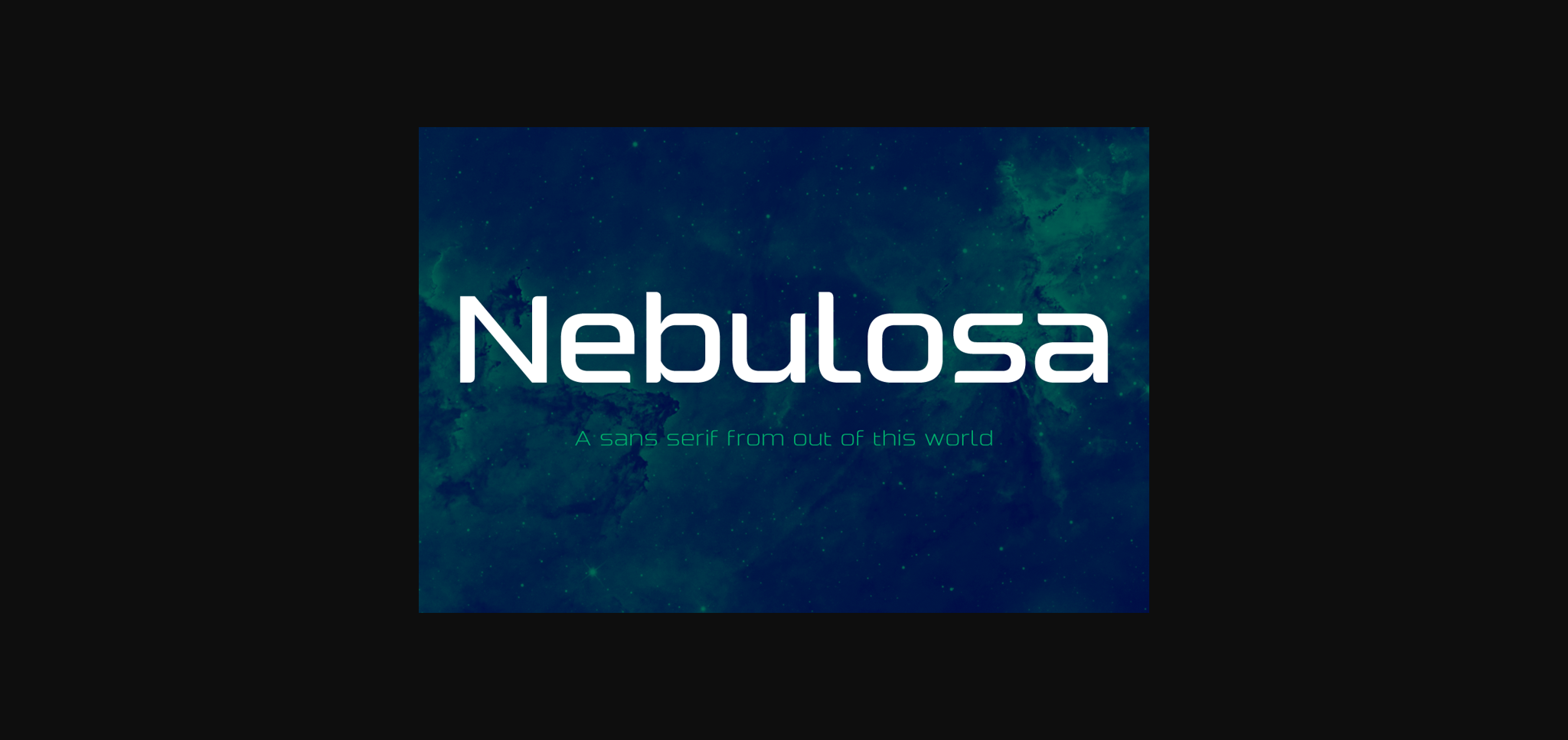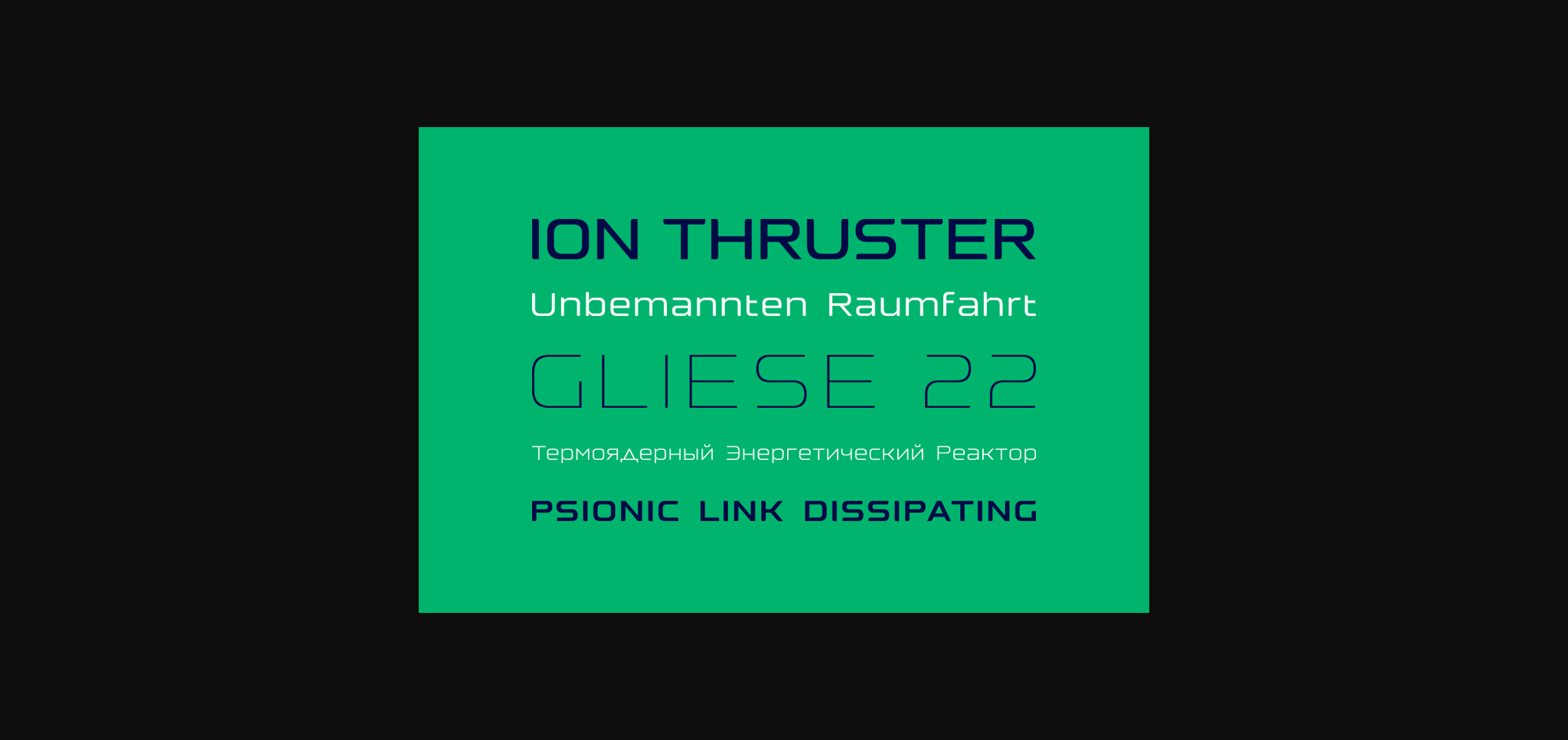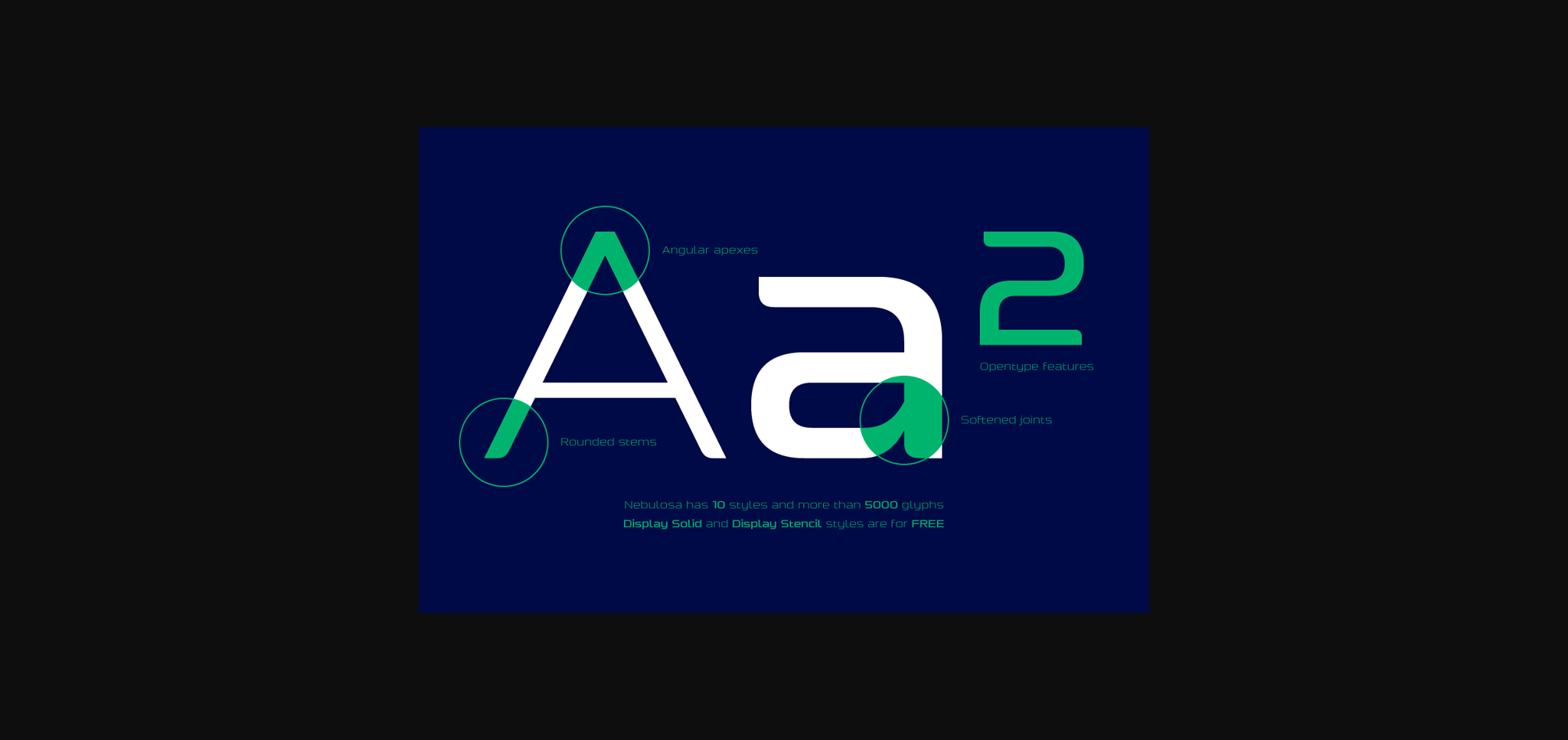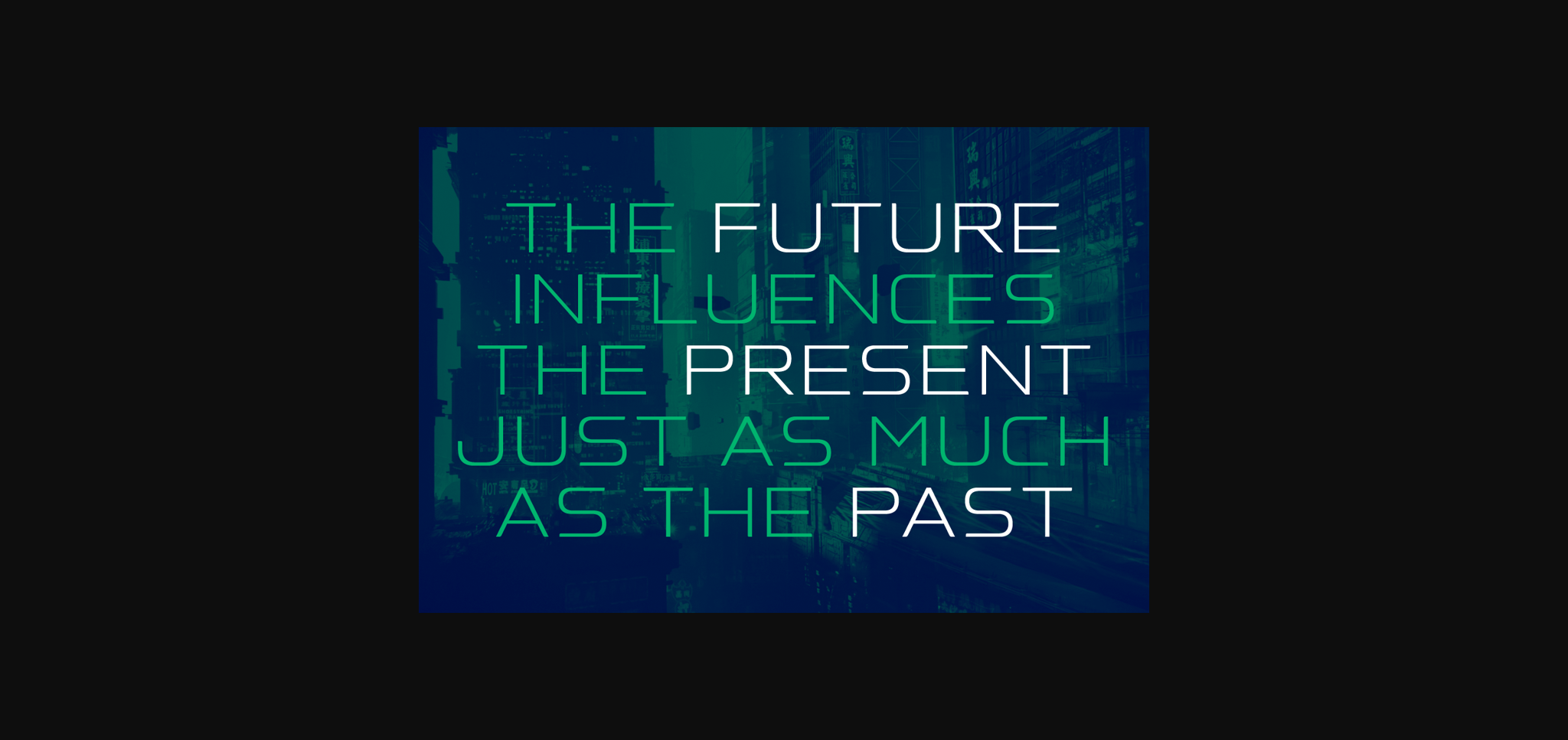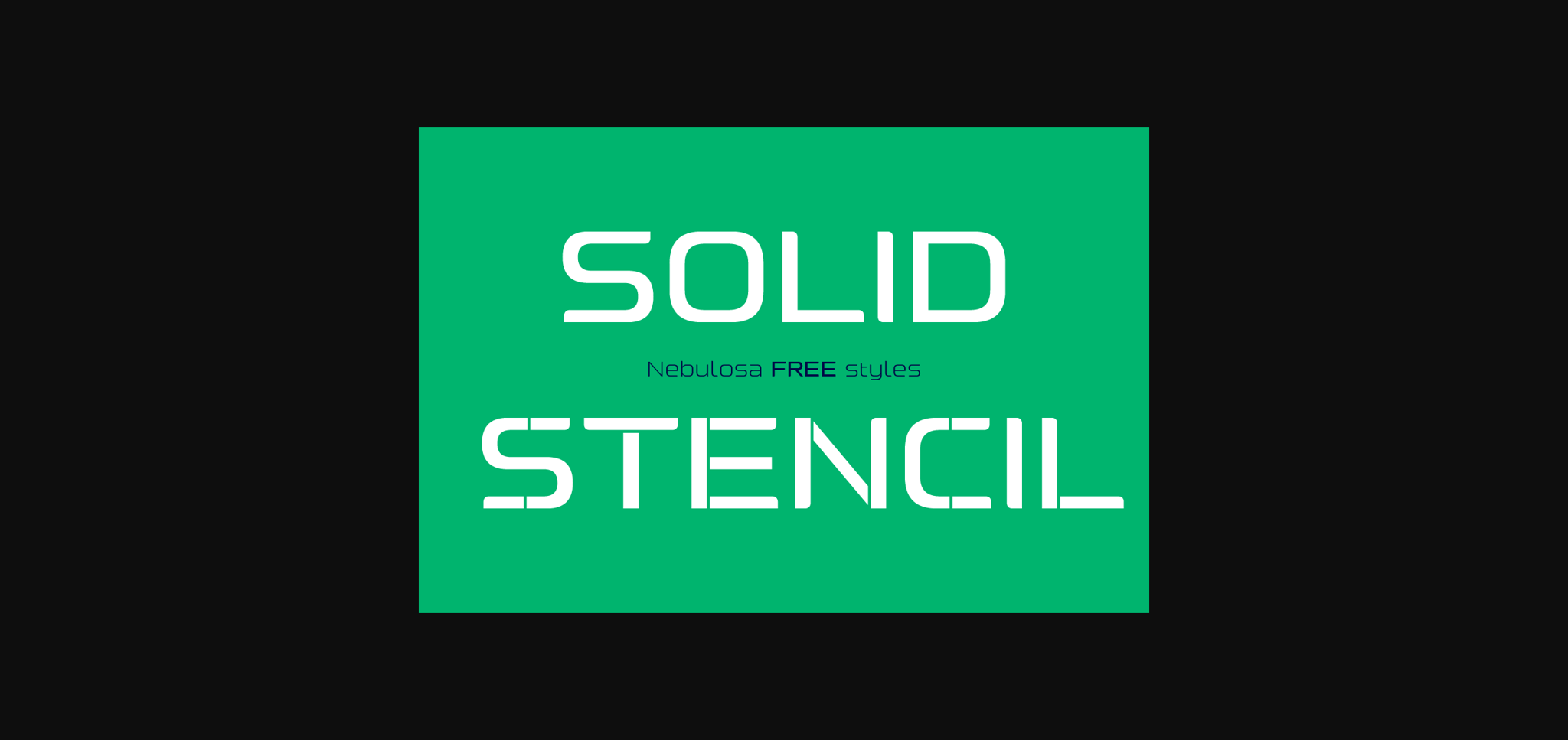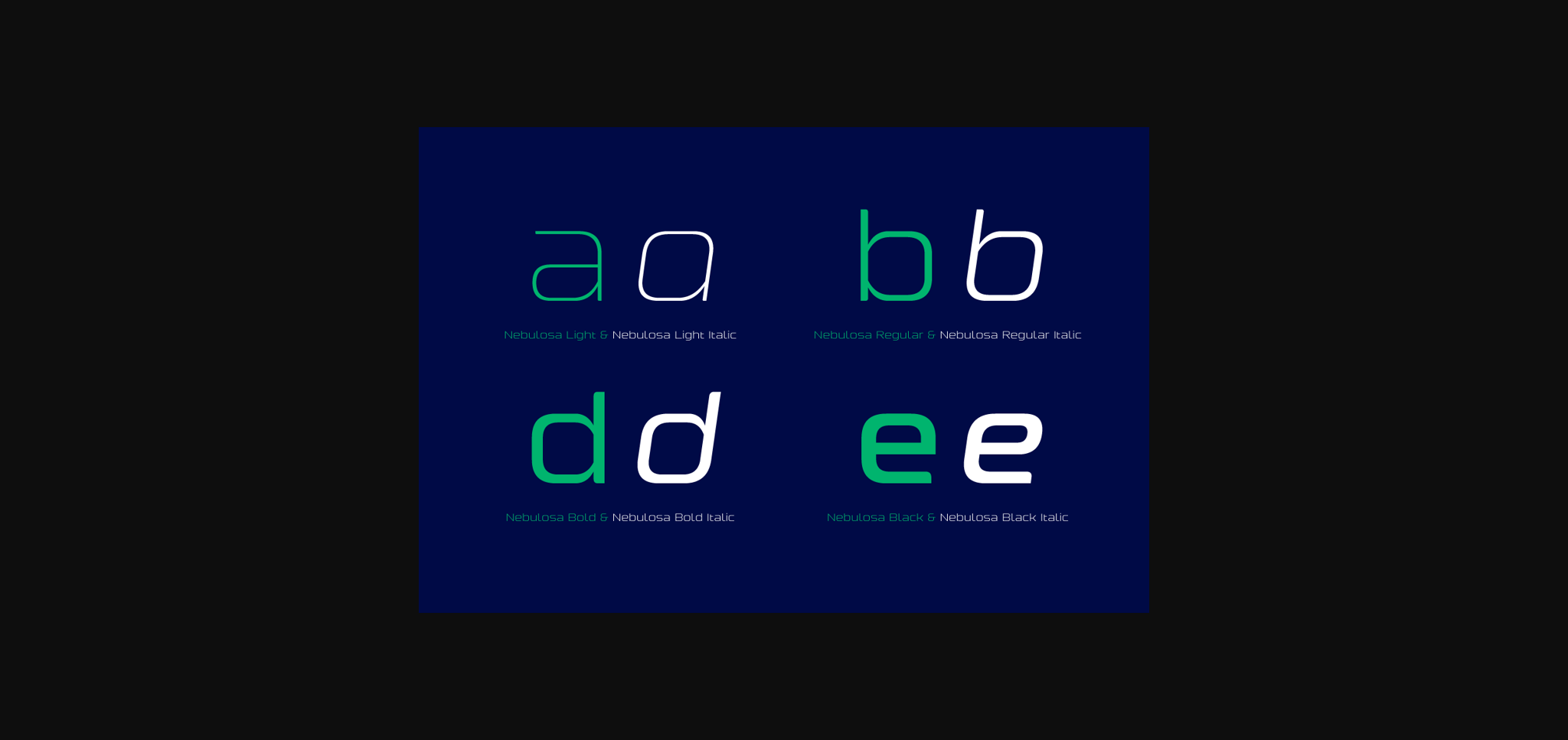
About Nebulosa Family Font
Nebulosa font family has been designed for Graviton Font Foundry by Pablo Balcells in 2020. It is a futuristic, slightly extended sans serif typeface with semi rounded endings that provide a softened aesthetic without losing its solidity. Nebulosa has been conceived to be most suitable for logos, headlines and display design pieces as well as short length text blocks.
Nebulosa consists of 10 styles, 8 of which containing small caps and glyph coverage for several language and 2 of which are free.